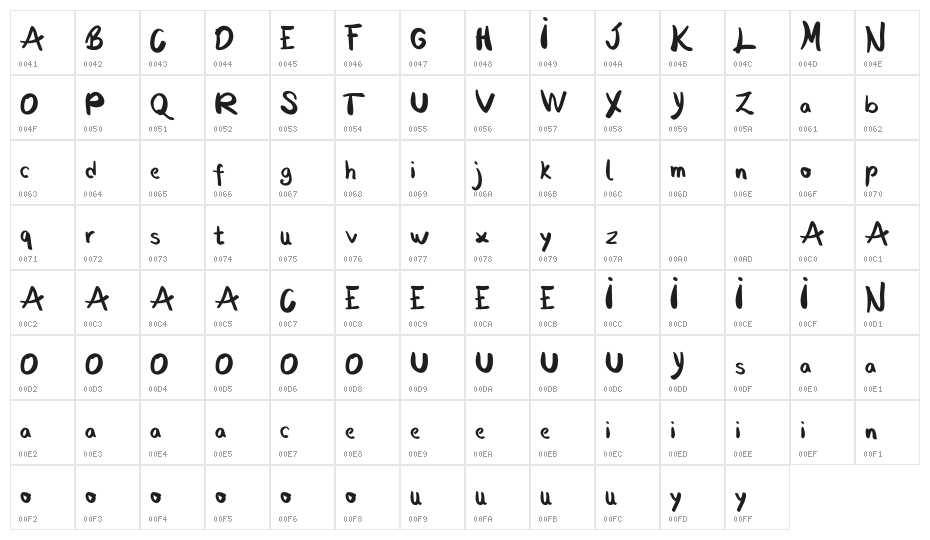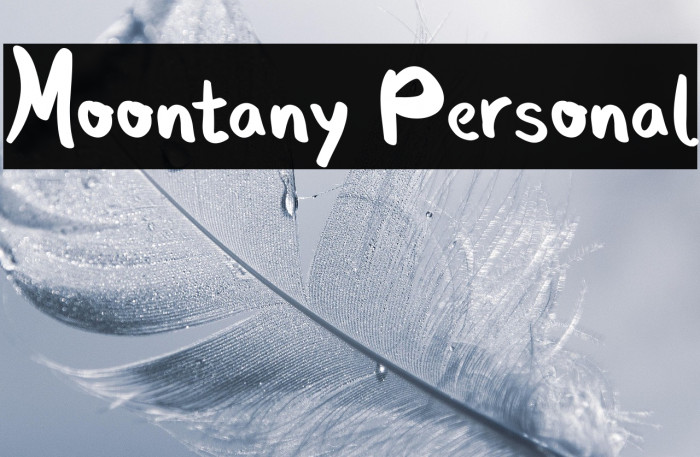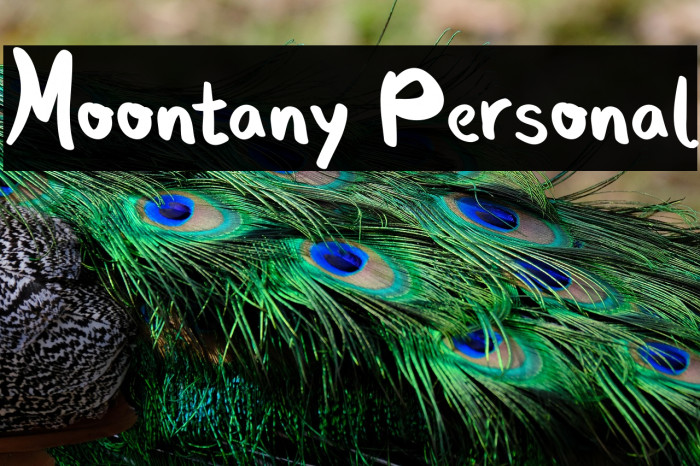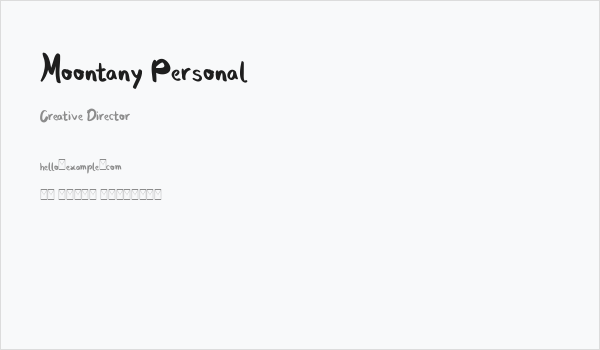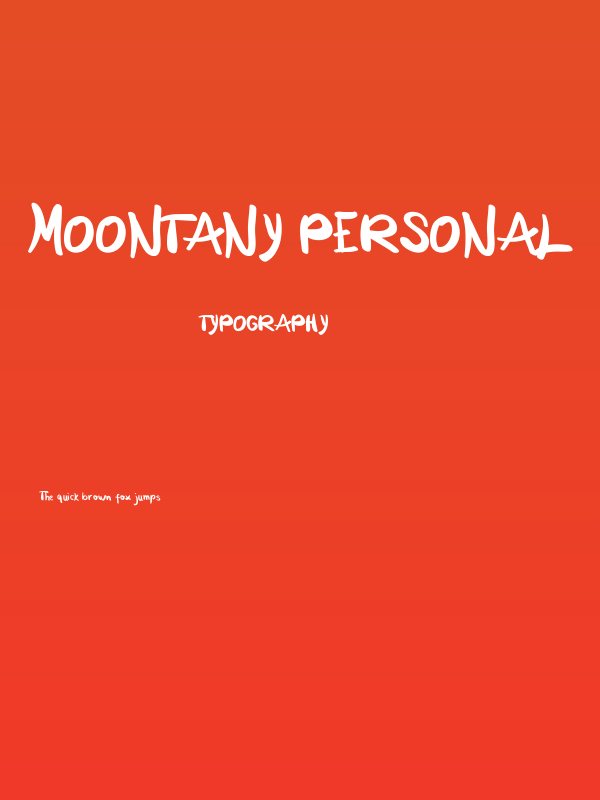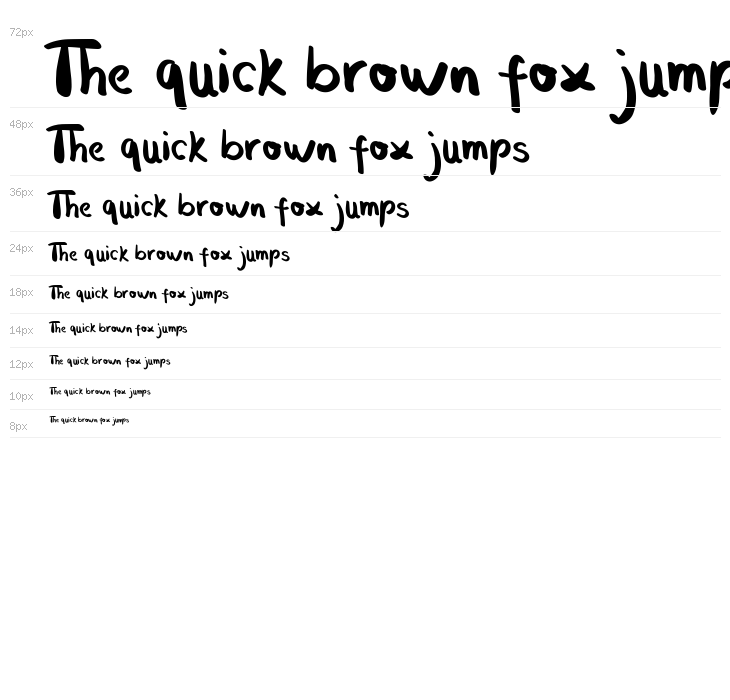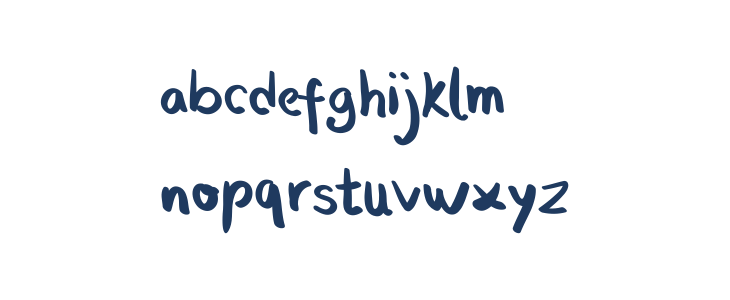
Moontany Personal Font
Moontany Personal Description
This font features a playful and energetic handwritten style, characterized by its bold and expressive strokes. The letters have a casual, brush-like appearance, giving them a dynamic and lively feel. The uppercase and lowercase letters maintain a consistent flow, with slightly irregular shapes that add to the font's charm. The overall design is informal and friendly, making it suitable for projects that require a personal touch. The font's unique style is accentuated by its varying stroke thickness, which adds depth and interest to the characters.
| Proposed Projects | Ideal for greeting cards, invitations, posters, and creative branding projects. |